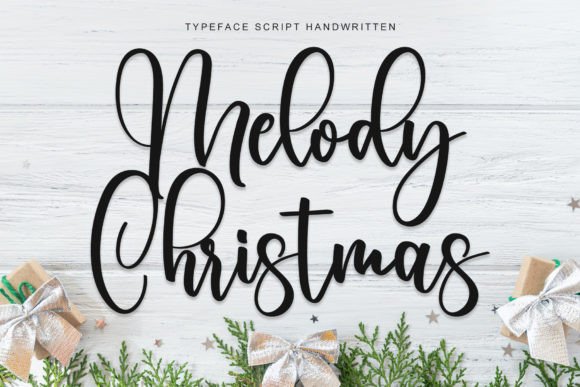
## **Feast Your Eyes on Melody Christmas: The Script Font That Will Make Your Heart Sing!**
Are you longing for a font that radiates charm, elegance, and a touch of festive cheer? Look no further than Melody Christmas, the exquisite script font that will transform your creative projects into masterpieces. With its graceful strokes, playful curves, and impeccable form, Melody Christmas is designed to ignite your imagination and make your words dance off the page.
Immerse yourself in the timeless beauty of classic calligraphy, reimagined with a modern twist. Melody Christmas is a carefully crafted font that strikes the perfect balance between tradition and innovation. Its carefully proportioned letters and varied character set create a visually captivating effect that will leave a lasting impression on your audience.
Whether you're designing wedding invitations, creating heartfelt holiday greetings, or adding a touch of whimsy to your social media posts, Melody Christmas is the perfect choice. Its versatility knows no bounds, allowing you to effortlessly elevate the look and feel of any project.
With Melody Christmas, you'll discover a font that not only captivates the eye but also evokes emotions. Its enchanting curves and delicate flourishes will add a touch of warmth and joy to your designs, leaving your audience enwrapped in a world of enchantment.
Unlock the power of Melody Christmas today and let your creativity soar! Let your words take on a life of their own as they flow through this stunning font, leaving an indelible mark on the hearts and minds of all who encounter them.
## **Benefits of Choosing Melody Christmas:**
* **Unleash Your Creativity:** Melody Christmas is the perfect canvas for your artistic expression, allowing you to explore new design possibilities and bring your vision to life. Say goodbye to creative limitations and embrace a world of endless inspiration.
* **Make a Lasting Impression:** Leave an unforgettable impression on your audience with Melody Christmas. Its distinctive style and captivating presence will ensure that your messages are remembered long after they are read.
* **Add a Personal Touch:** Inject a touch of your own personality into your designs with Melody Christmas. Its versatility allows you to customize your projects and make them a true reflection of your unique style.
* **Embrace the Festive Spirit:** Infuse your holiday designs with the magic of Melody Christmas. Its playful and enchanting nature will add a touch of cheer to any festive project, spreading joy and merriments wherever it goes.
* **Experience Seamless Versatility:** From elegant wedding invitations to charming social media posts, Melody Christmas seamlessly adapts to a wide range of design projects. Its adaptability makes it the perfect choice for creatives of all kinds.